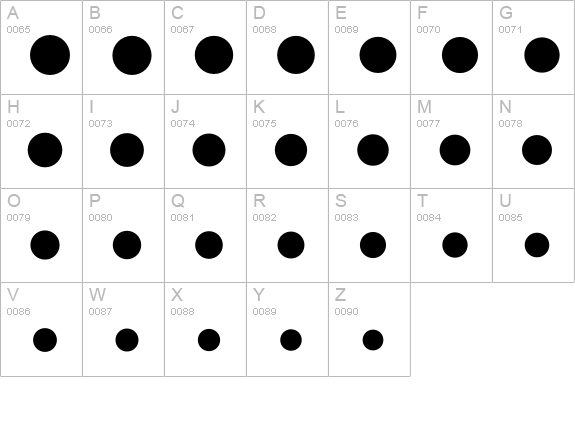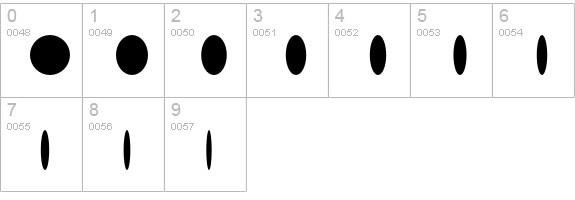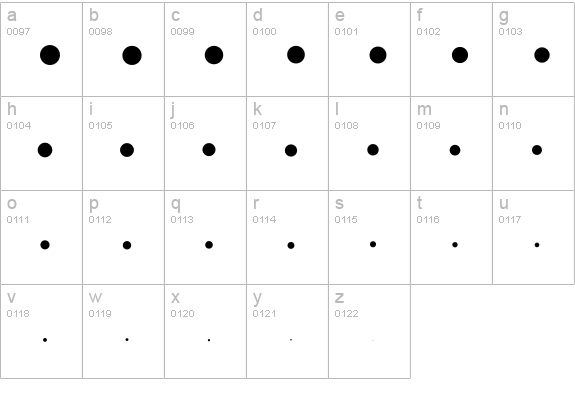
Freeform-Five Font Details
Introducing Freeform-Five font, a versatile and modern typeface that brings a touch of creativity to your design projects. This unique font features sleek lines and a contemporary style that makes it perfect for a wide range of applications. With its free-spirited design and eye-catching appeal, Freeform-Five font is sure to make your work stand out. Best of all, Freeform-Five font is freely available to download at FontsMarket.com. Whether you're working on a branding project, website design, or any other creative endeavor, this font will add a fresh and dynamic element to your work. Don't miss out on the opportunity to enhance your designs with the free-spirited charm of Freeform-Five font.